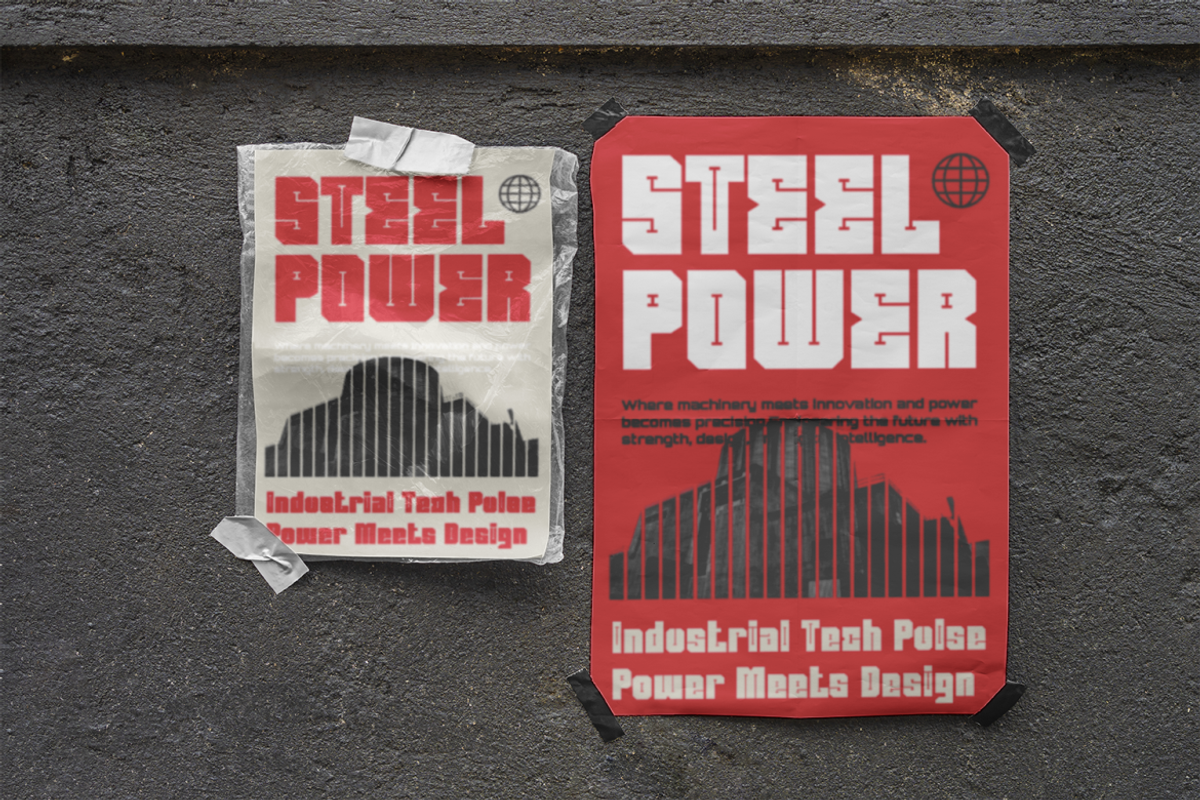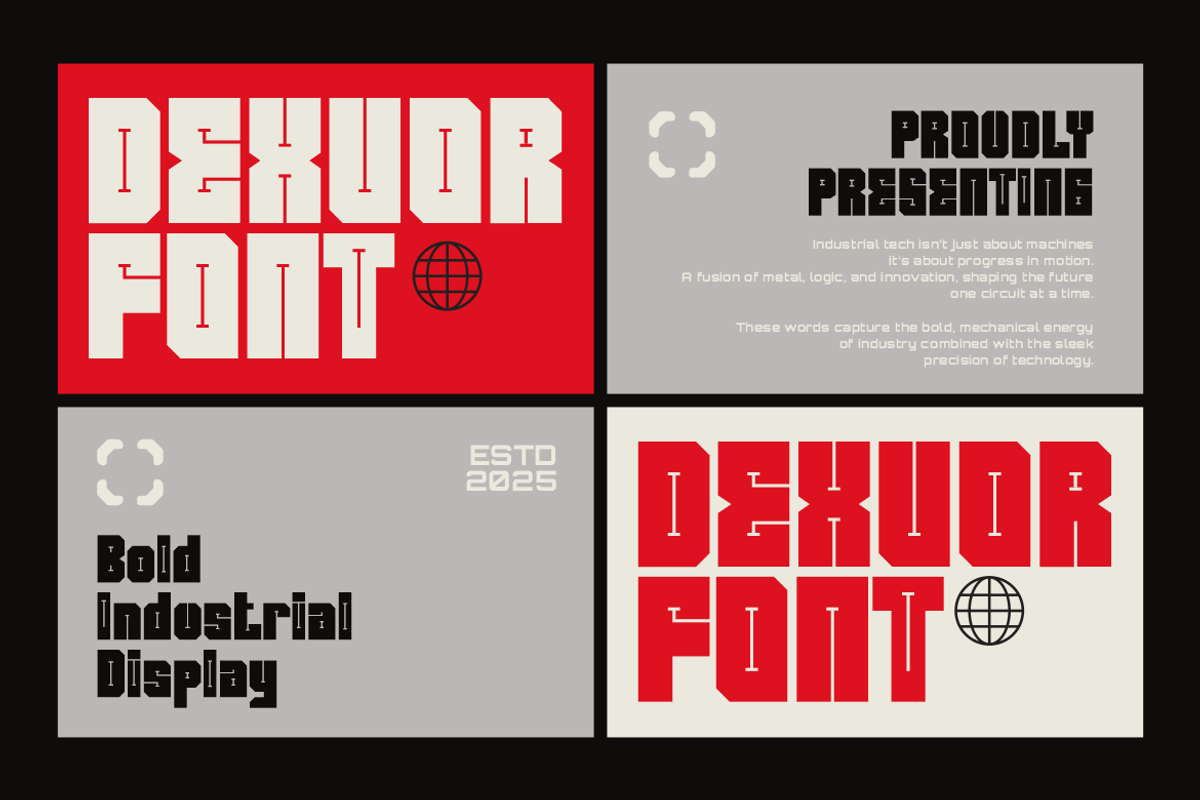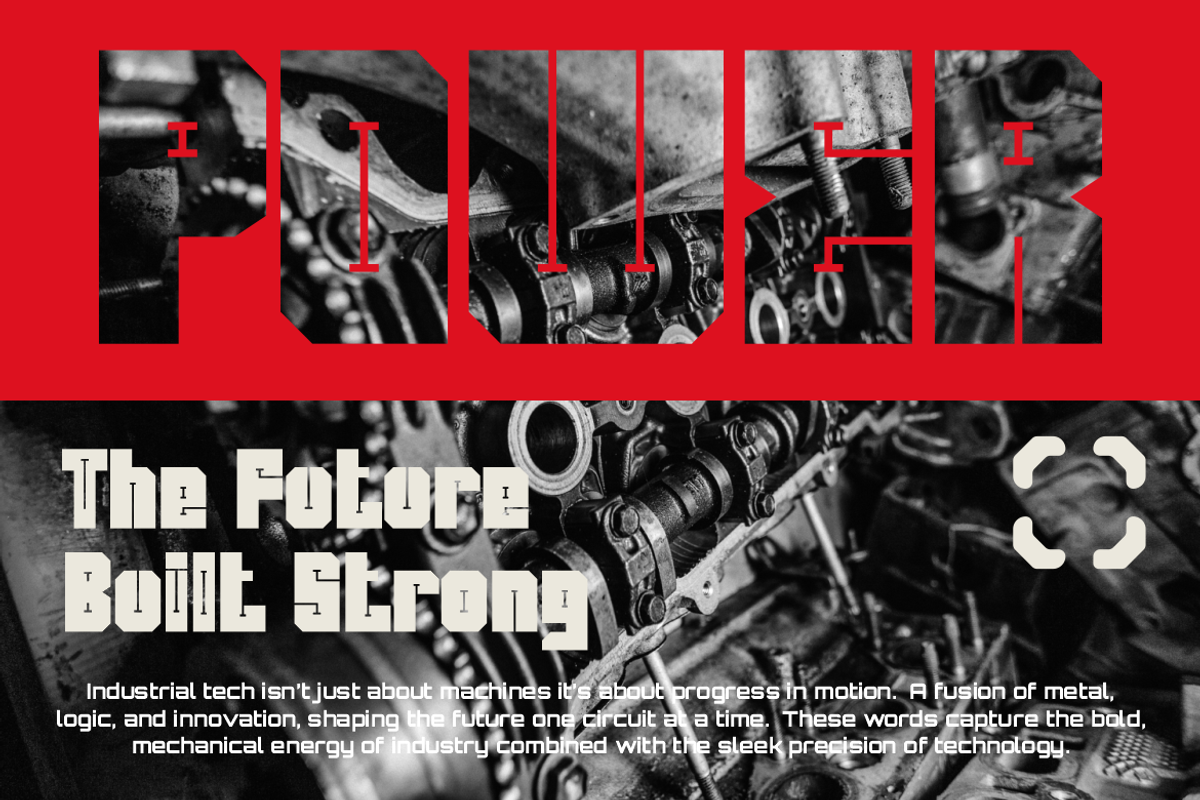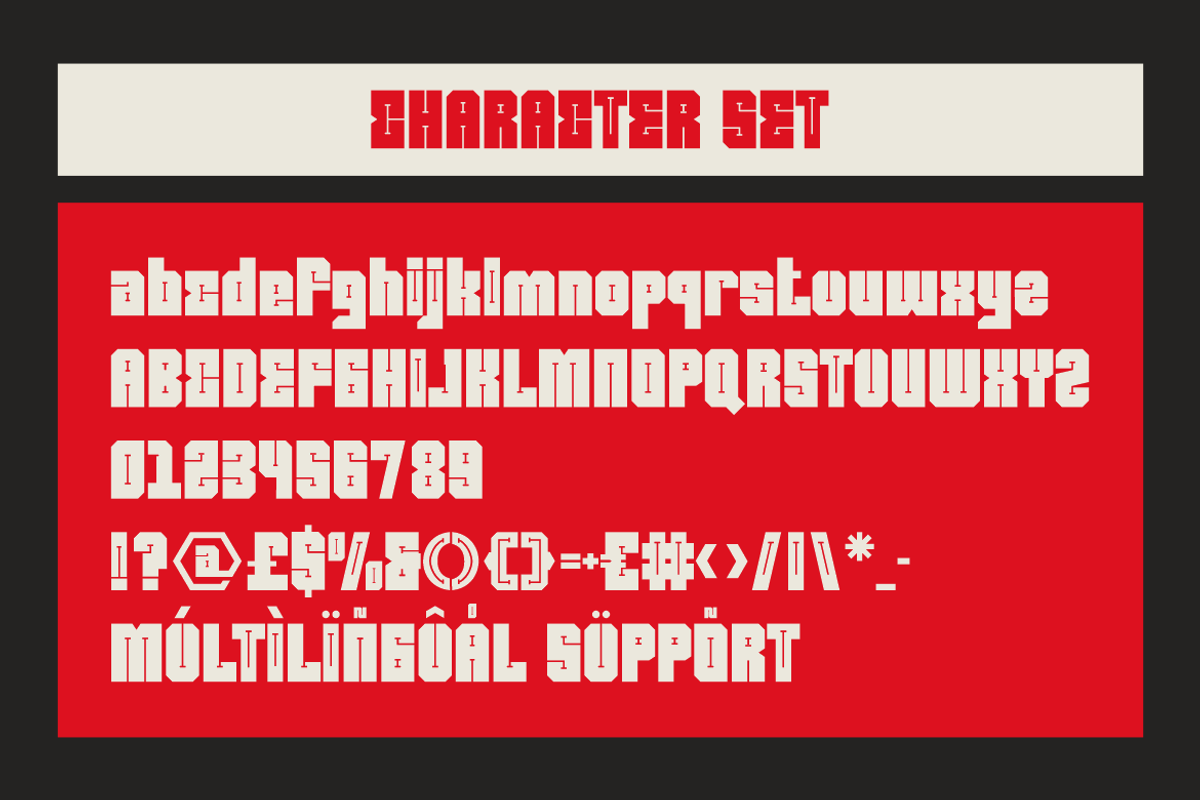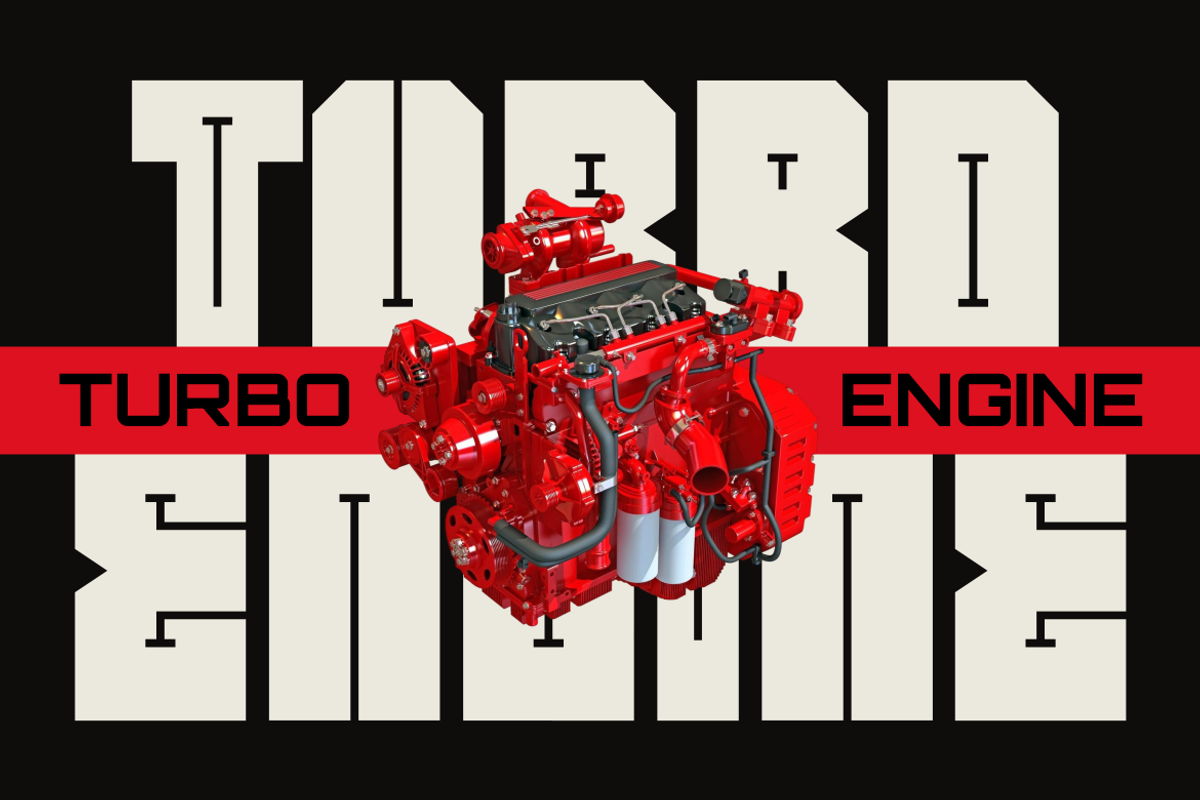
Dexvor Bold Industrial Display Font
Dexvor Bold Industrial Display Font brings a powerful industrial attitude shaped with tall, heavy, and angular letterforms. Each character uses strong block geometry with rigid corners and narrow counters that create a sense of engineered precision. The strokes feel thick and mechanical, with sharp cuts that echo industrial architecture and machine-built structure. The font stands firmly in the bold display category, carrying a modern industrial style that highlights strength, energy, and determination. Dexvor Bold Industrial Display Font is perfect for designers who want a typeface with solid presence and a clear sense of structural identity. Its bold form works well for compositions that need authority, stability, and a technical edge without sacrificing readability.
This font adds impact to branding, posters, headlines, product packaging, and visual identities with a tough mechanical tone. The shapes make it ideal for logo design, metal-themed projects, automotive promotions, engineering campaigns, and tech-focused advertising. It also supports creative uses such as magazine titles, business banners, film titles, stickers, and digital promos with a futuristic industrial mood. Dexvor Bold Industrial Display Font fits any layout that demands bold typography and strong visual direction. Its style creates a clear message of power and innovation, helping every design feel dynamic and forward-driven.